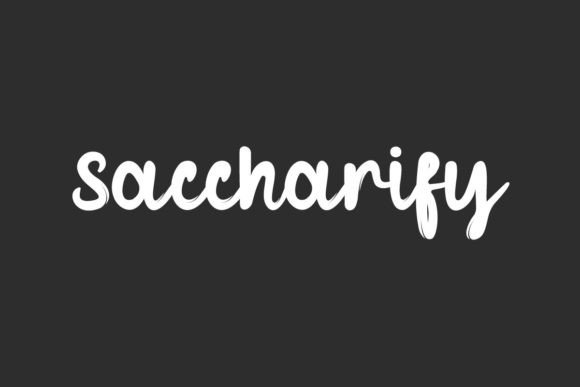
Unleash the charm of elegance and beauty with Saccharify Font, a captivating script font that will transform your designs into a visual masterpiece. Its meticulously crafted characters, reminiscent of small thick brush strokes, exude a sense of captivating charm, adding a touch of uniqueness to every project.
Saccharify Font is not just a font; it's an expression of individuality and creativity, perfect for crafting captivating wedding banners that radiate joy and romance. With its delicate yet distinctive appearance, Saccharify Font will elevate your designs to new heights, captivating the hearts of your audience.
Imagine your wedding banner, adorned with the allure of Saccharify Font, becoming the centerpiece of attention, drawing the eyes of all who behold it. The intricate details and flowing curves of each letter will invite a sense of sophistication and charm, leaving a lasting impression on your guests.
Saccharify Font is not limited to wedding banners; it's a versatile font that seamlessly adapts to a variety of creative endeavors. Whether you're designing posters, invitations, logos, or social media graphics, Saccharify Font will elevate your designs with its captivating elegance.